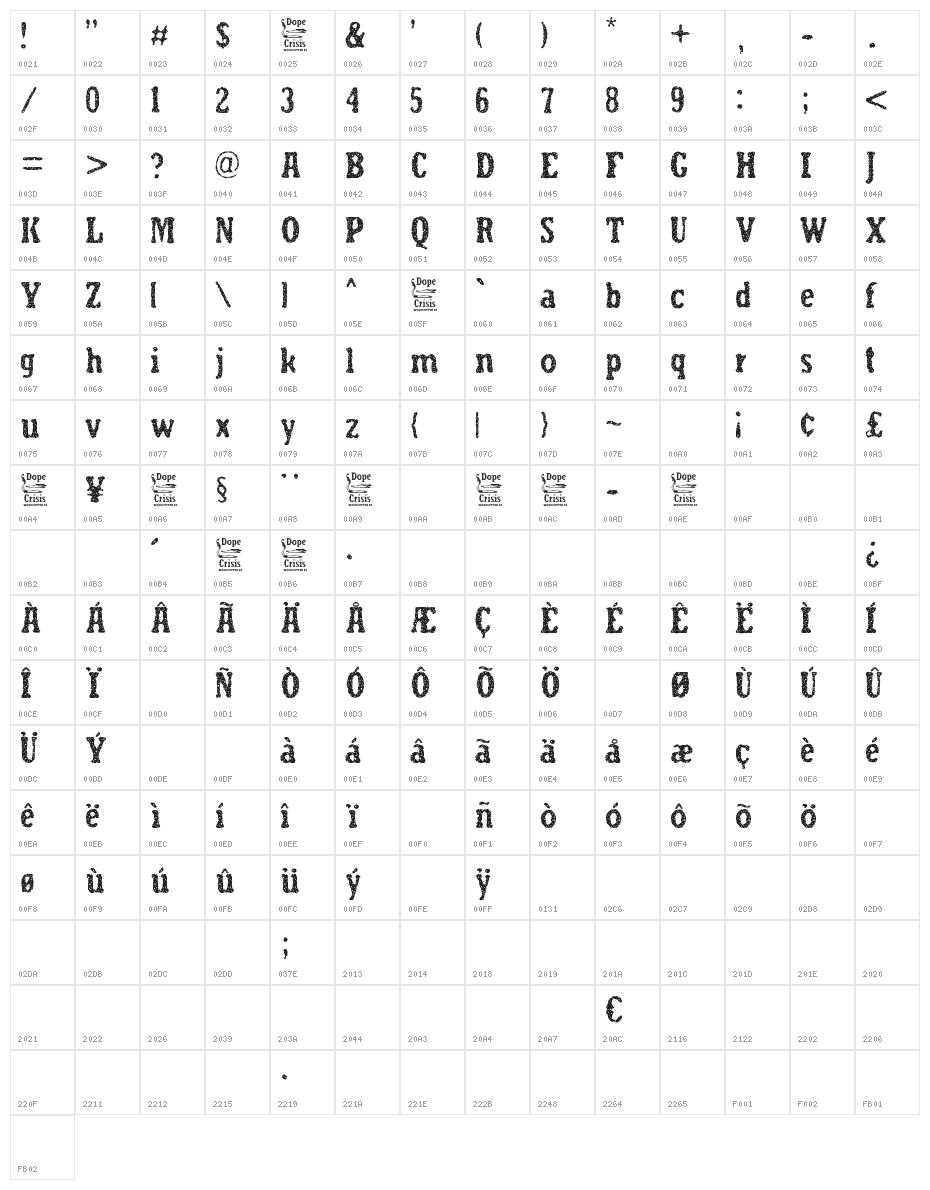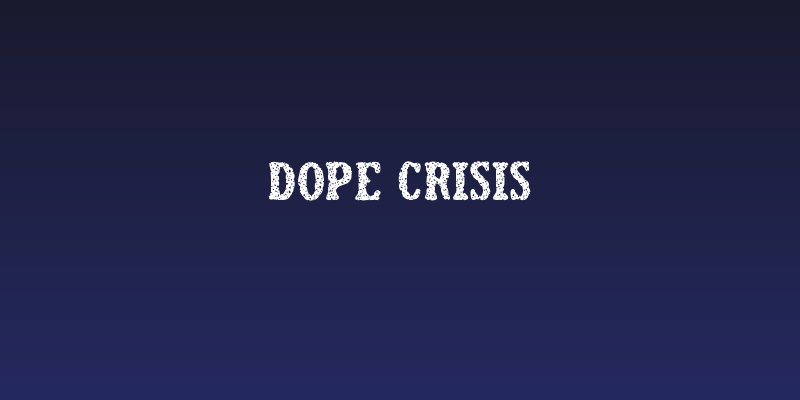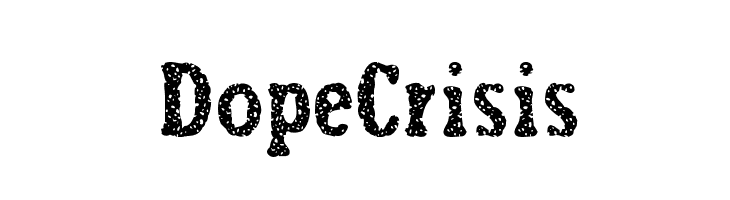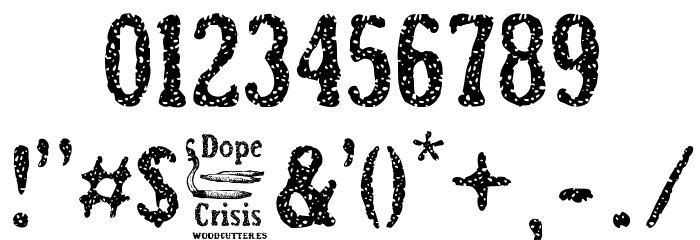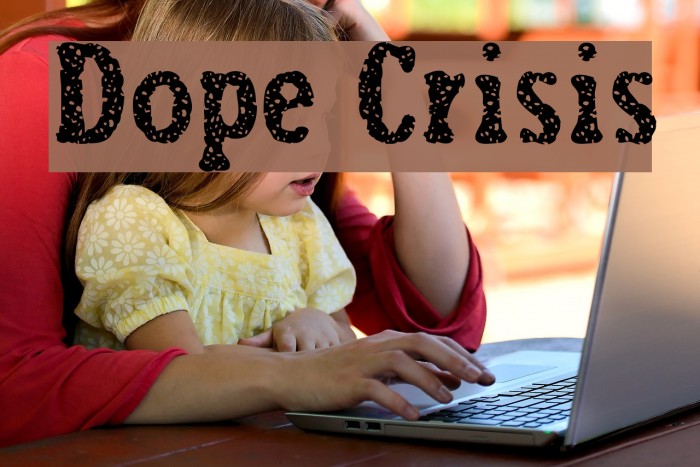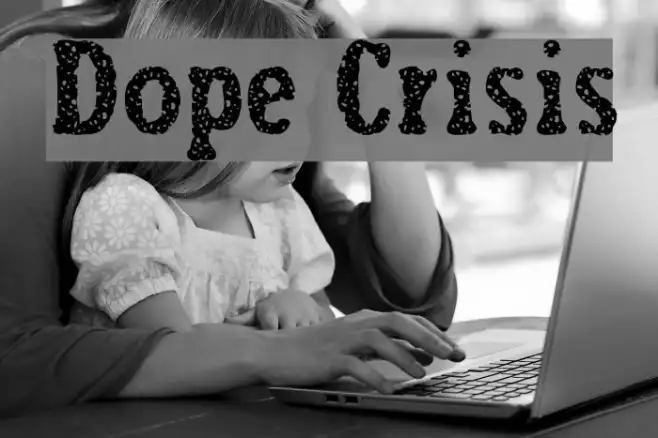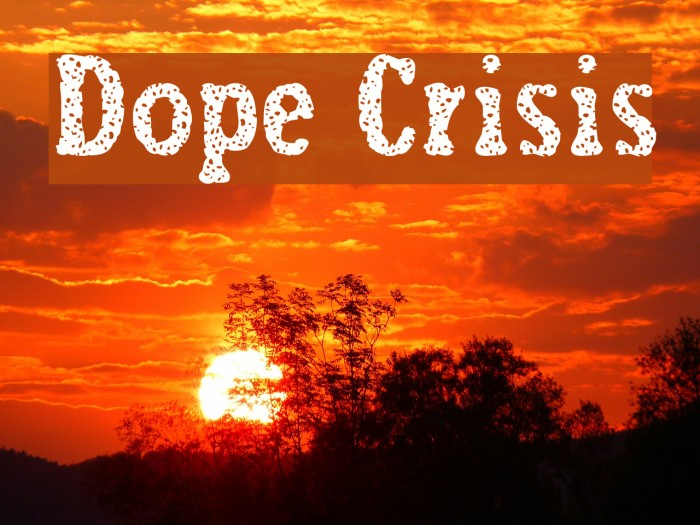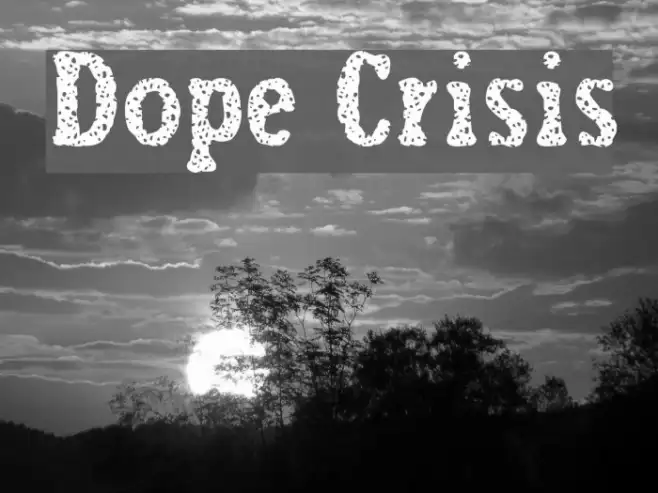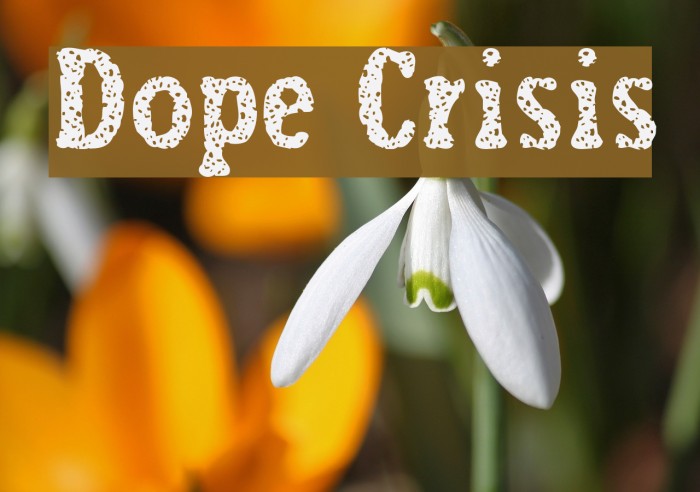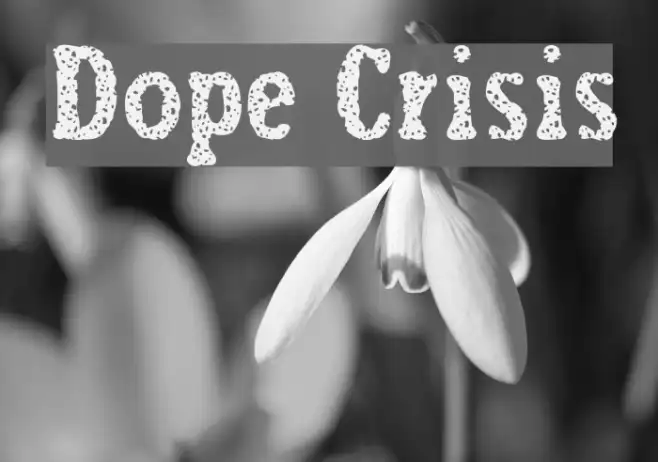
Dope Crisis Font
Dope Crisis Description
This font features a bold, textured design with a distressed, grunge-like appearance. The characters are filled with irregular, speckled patterns that give them a unique, handcrafted look. The uppercase and lowercase letters maintain a consistent style, with rounded edges and a playful, yet slightly rugged feel. The numerals and special characters follow the same design principles, ensuring a cohesive appearance across all glyphs. This font's distinctive style makes it stand out, perfect for projects that require a bold and artistic touch.
| Proposed Projects | Ideal for posters, album covers, branding, and any creative project that benefits from a bold, artistic touch. |